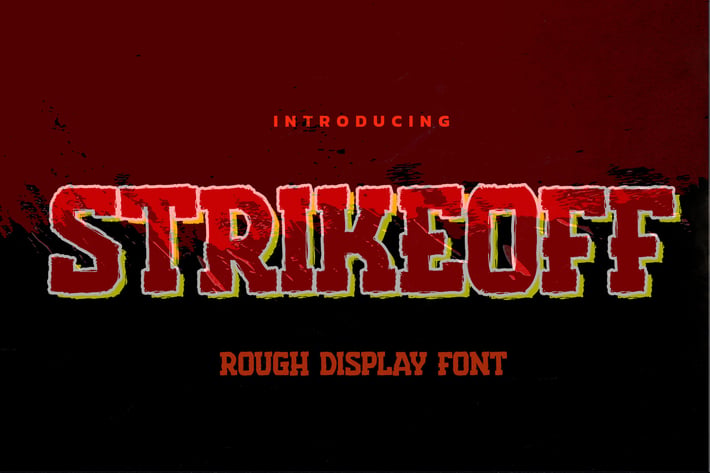
Strikeoff - Rough Display Font
Introducing Strikeoff It's All Caps Display Font is a Textured Natural Style and Authentic Brush style, this font is great for your creative projects such as watermark on photography, and perfect for logos & branding, invitation, advertisements, product designs, stationery, wedding designs, label, product packaging, special events or anything that need handwritting taste.